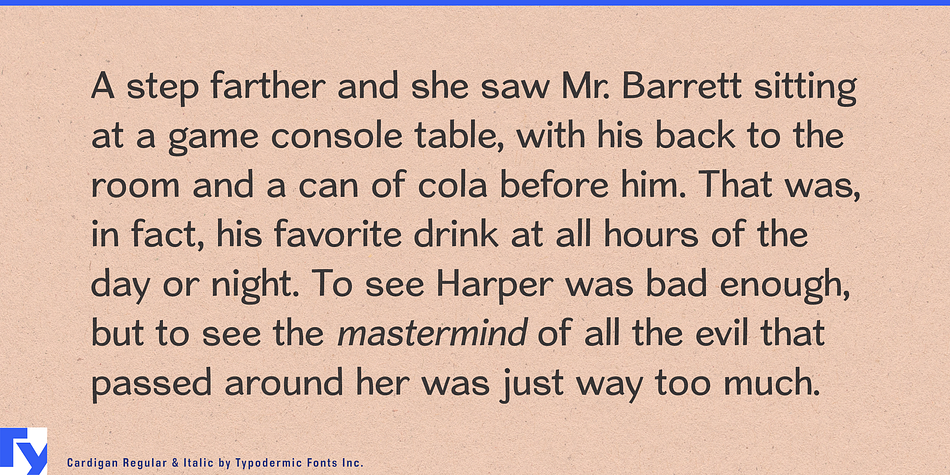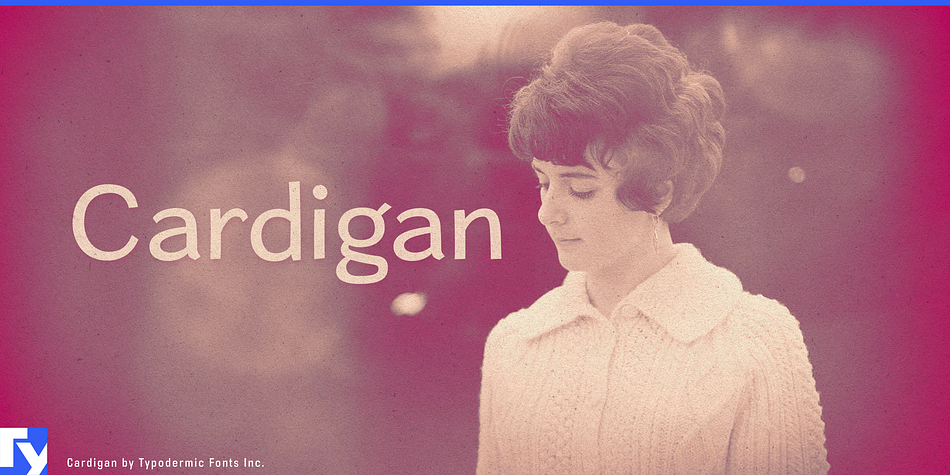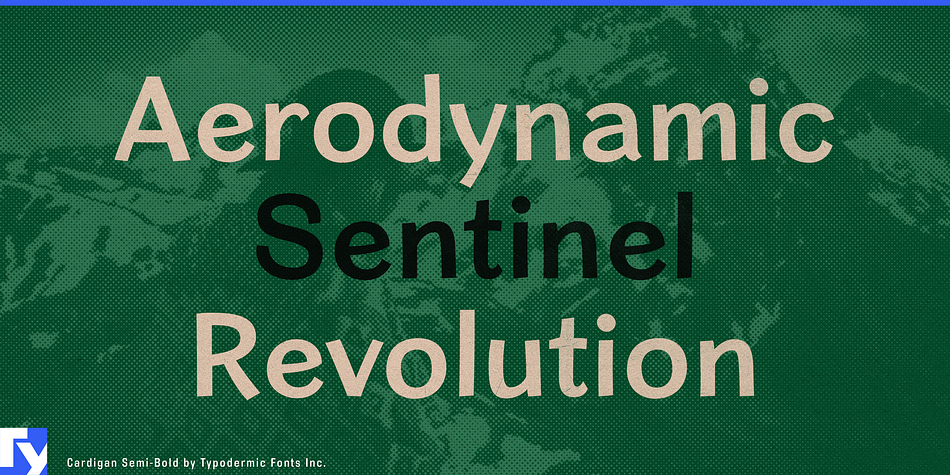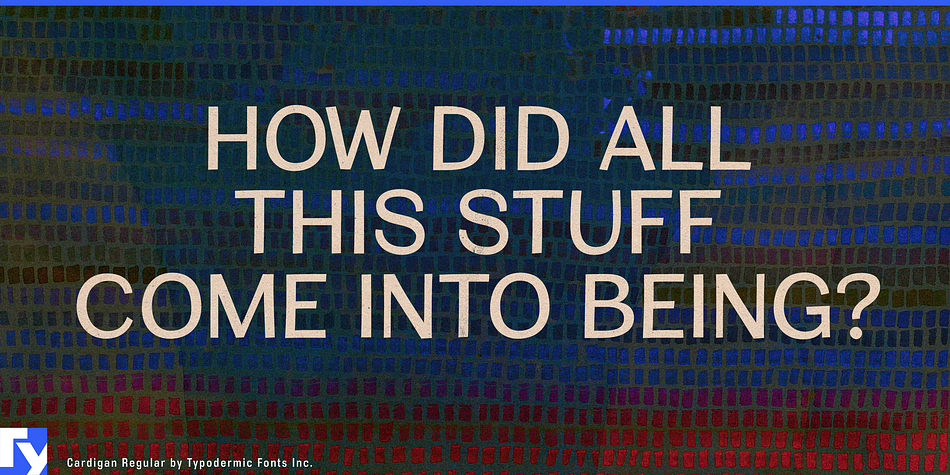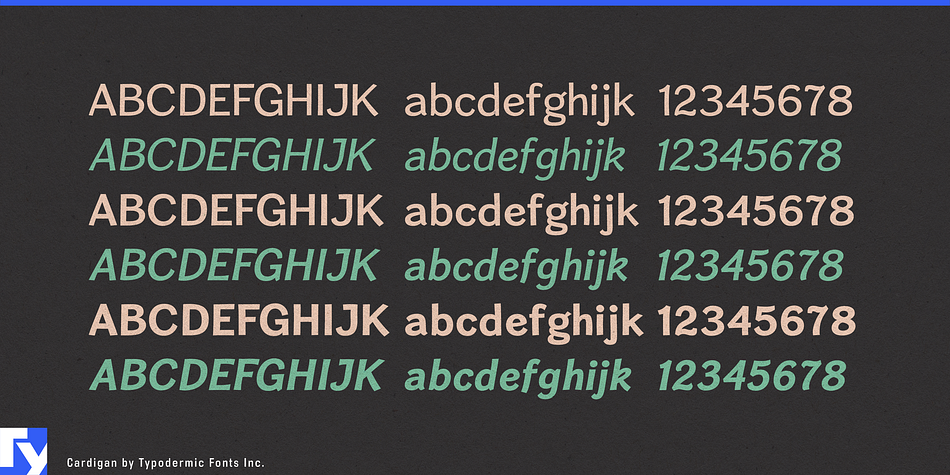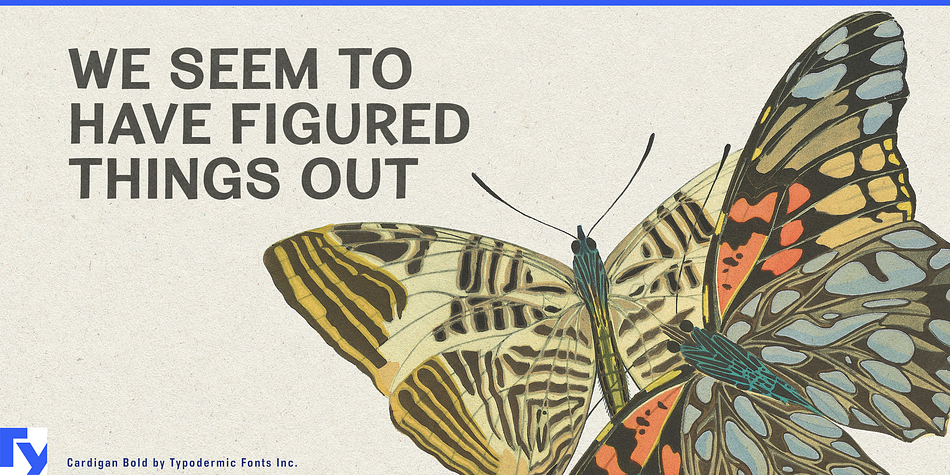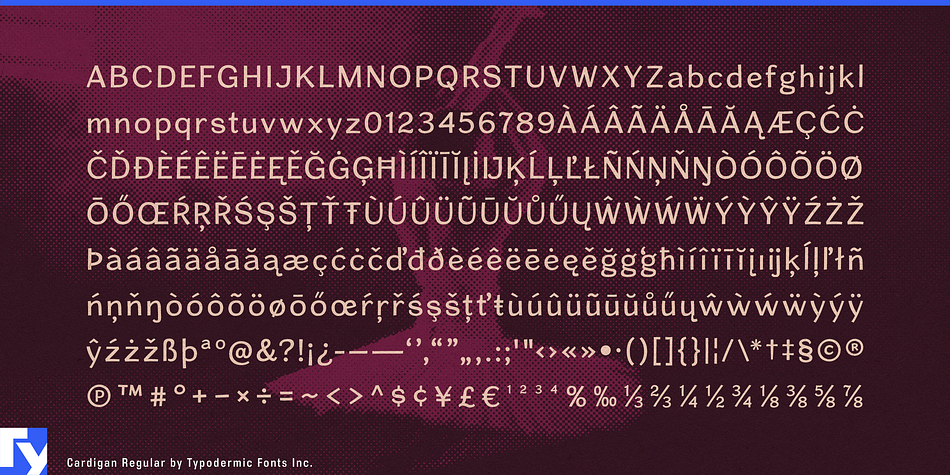
Designed by Ray Larabie, Cardigan is a sans serif font family. This typeface has six styles and was published by Typodermic Fonts Inc.
Cardigan is casual sans-serif typeface. While the line treatment is nonchalant, letterforms are clear and conventional making it one of those rare casual typefaces that perform well in large bodies of text. The italics are more naturalistic than the uprights but practical; not show-offish. Cardigan is available is 3 weights plus italics.